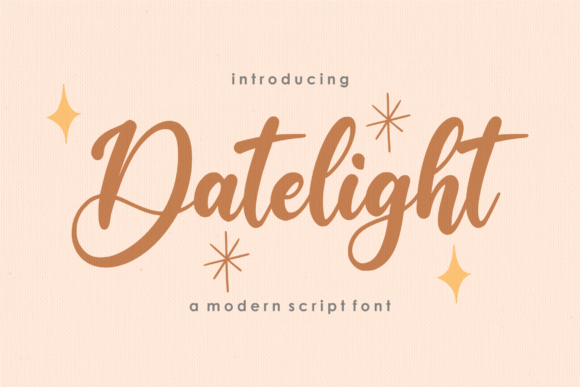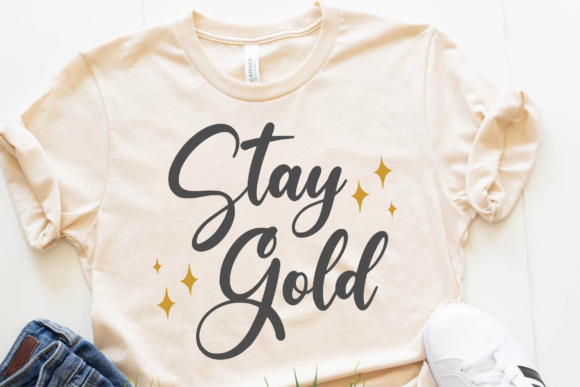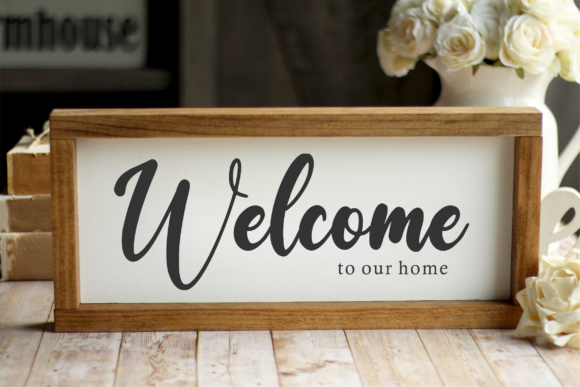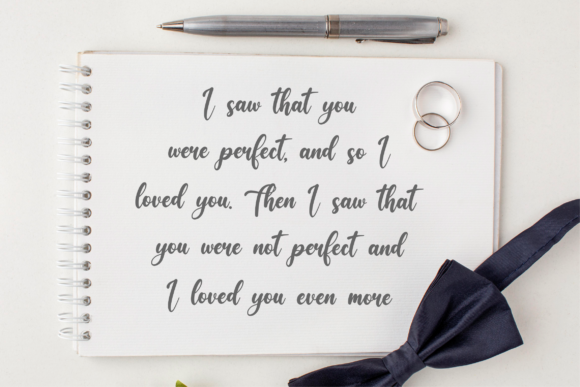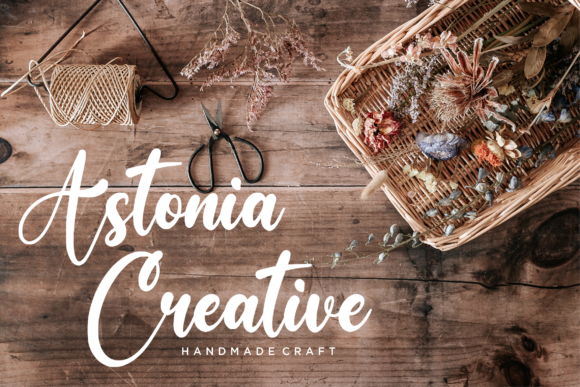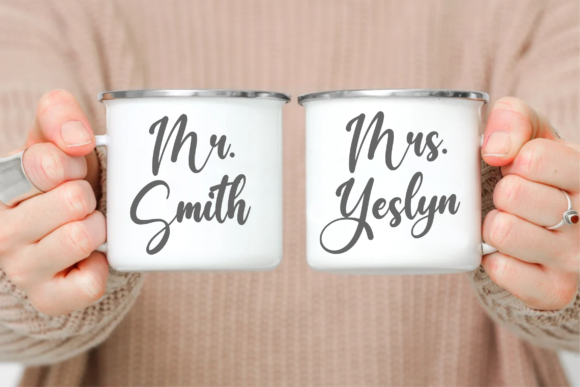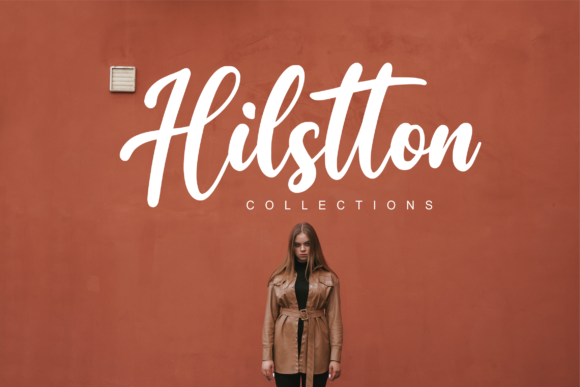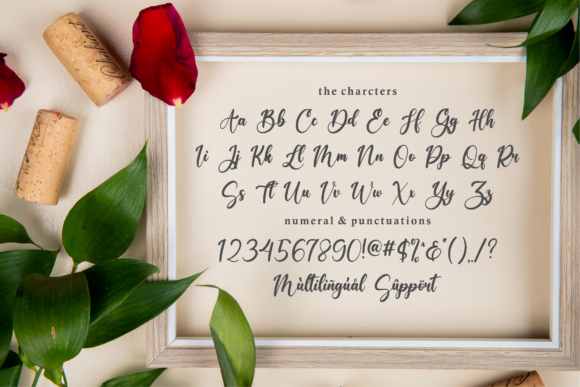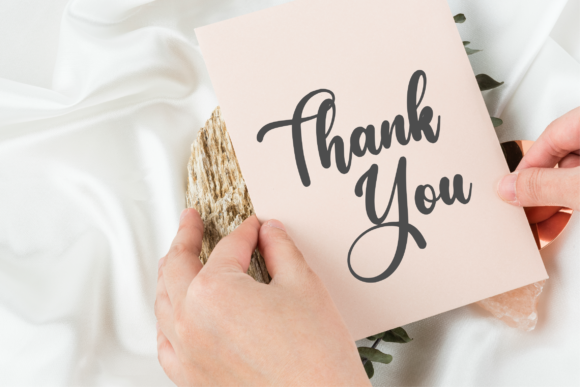
Datelight Font
Qwrtype proudly presents Datelight, a modern handwritten font that encapsulates sophistication and contemporary style. As we celebrate our 1-year anniversary, we are excited to share this versatile typeface designed to elevate your creative projects. Datelight seamlessly blends elegance with a touch of informality, making it the perfect choice for a wide range of applications.
This font is a valuable asset for product packaging, branding projects, magazines, social media content, weddings, or any context where words need to stand out against diverse backgrounds. Its distinctive, handcrafted aesthetic adds a personalized and unique touch to your designs, setting them apart in a world filled with generic typefaces.